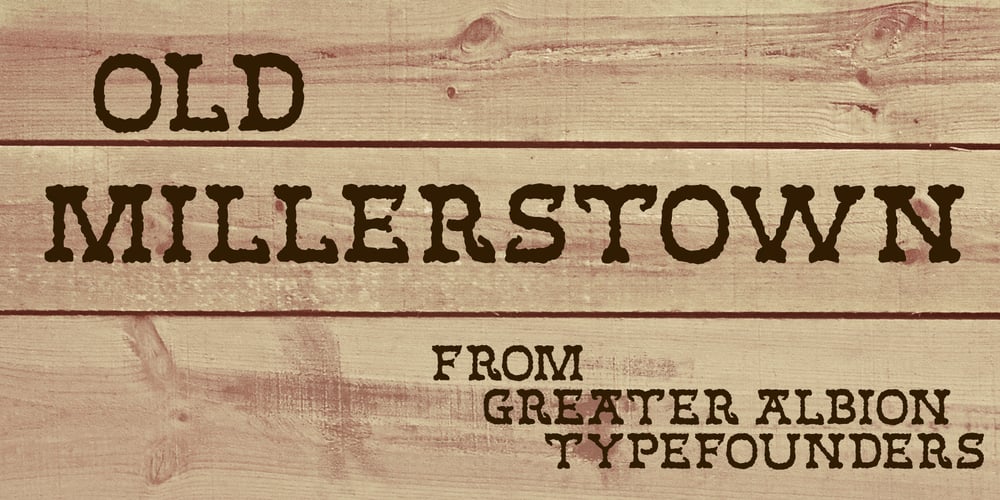
Old Millerstown Font Family was designed by Paul James Lloyd and published by Greater Albion Typefounders. Old Millerstown contains 1 styles and family package options. Millerstown is full of that solid, 19th Century, transatlantic spirit of enterprise. It is an all capitals face, decorative but clear and legible, ideal for signage, posters and banners. “Old Millerstown” has been treated to capture the look of heavily used, weathered type, adding another vintage element to the typeface. Bring a touch of American inspired flair to your next design project!